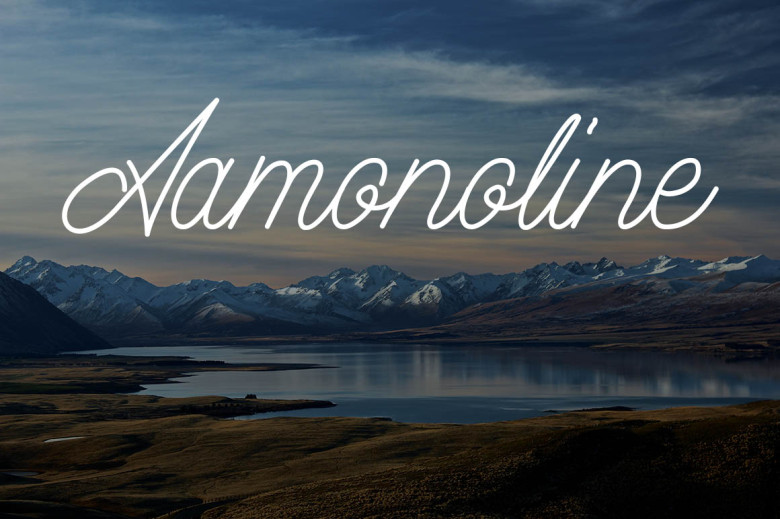
Aamonoline Script Font
Continue to be an impressive handwriting from the Magang Letterhend designer. Introducing Aamonoline Script Font, Aamonoline is beatiful monoline script font. With this font you can your own logo branding, homeware designs, product packaging, wedding invitation or simply as a stylish text overlay to any background image